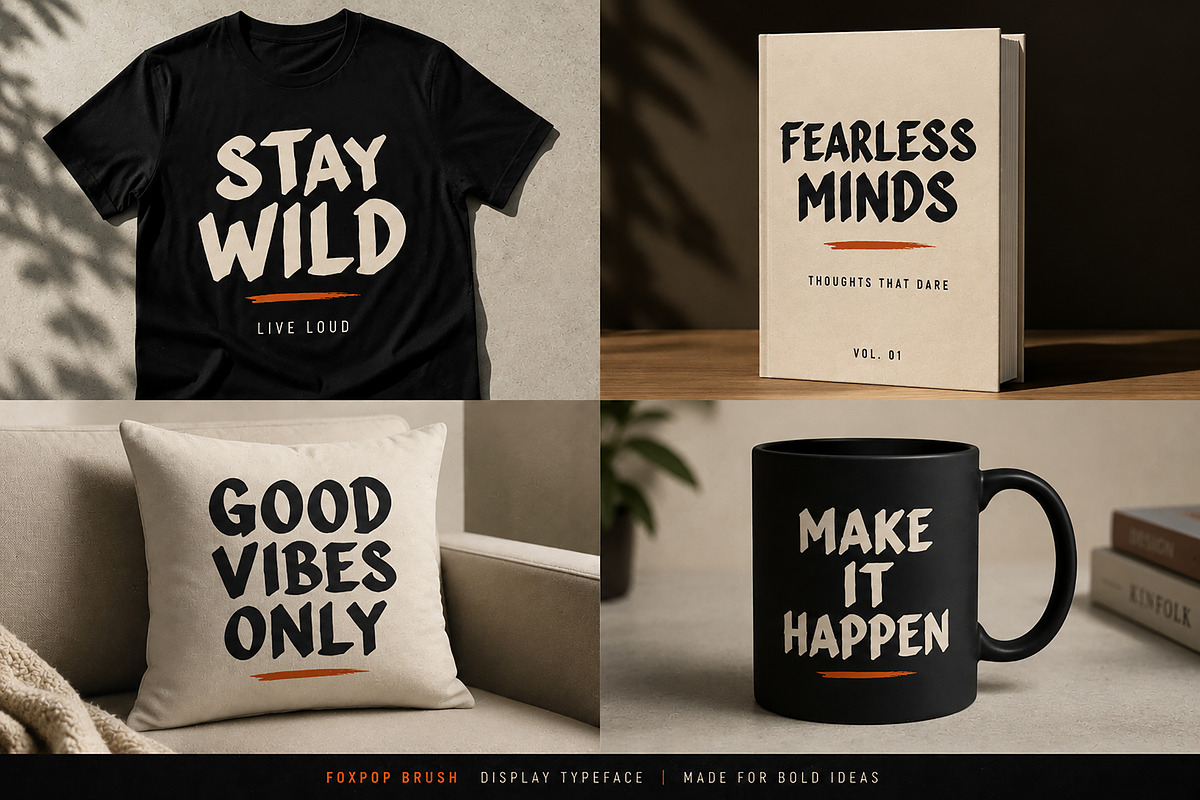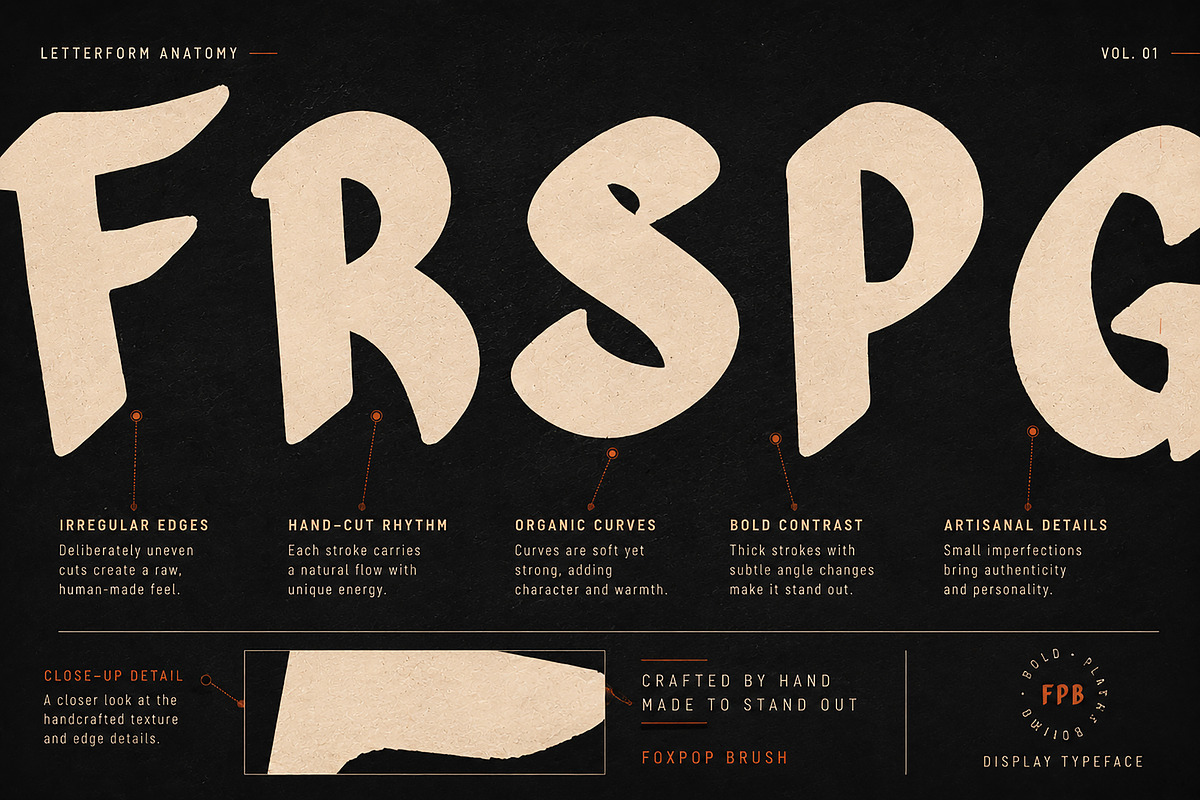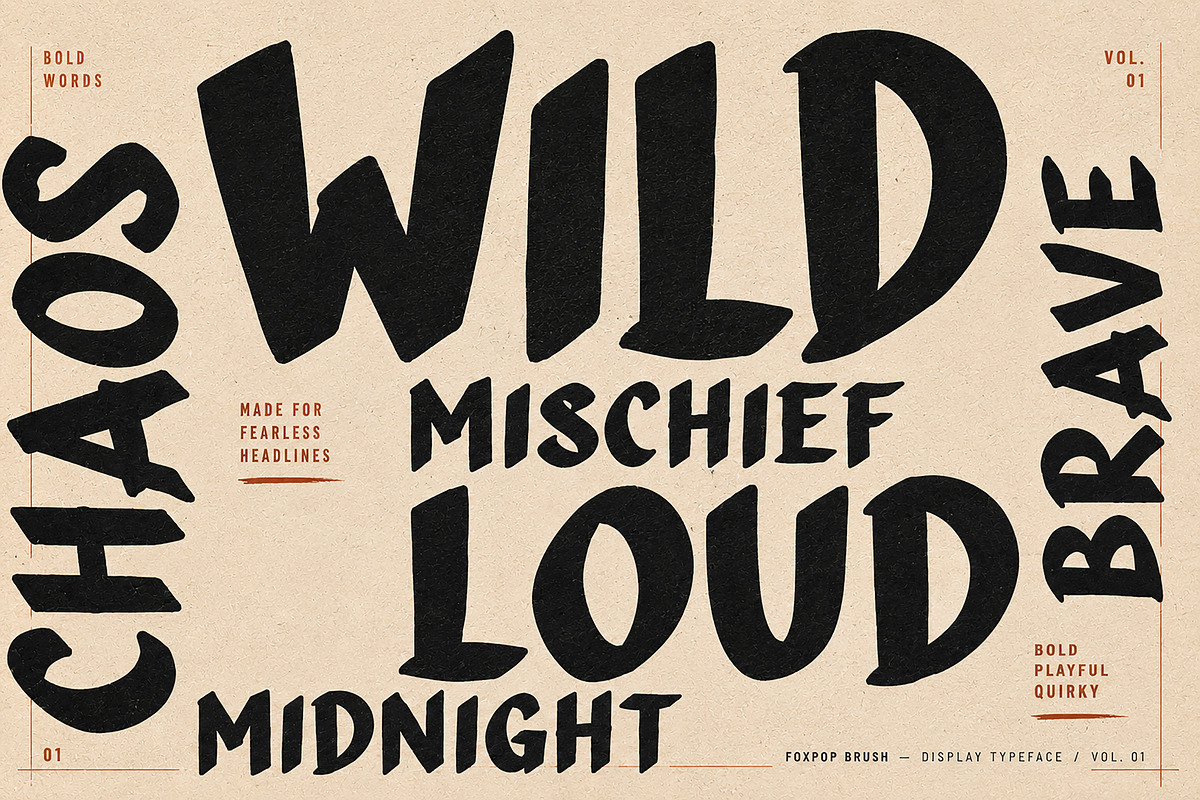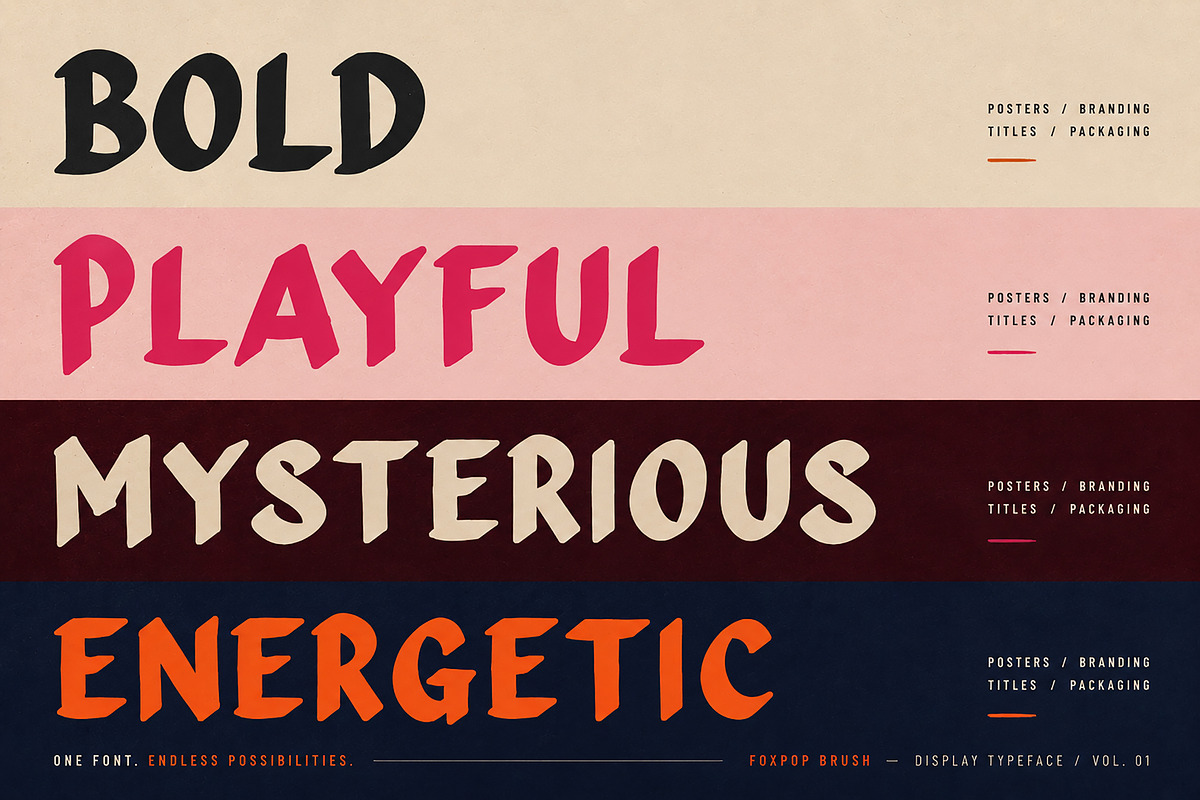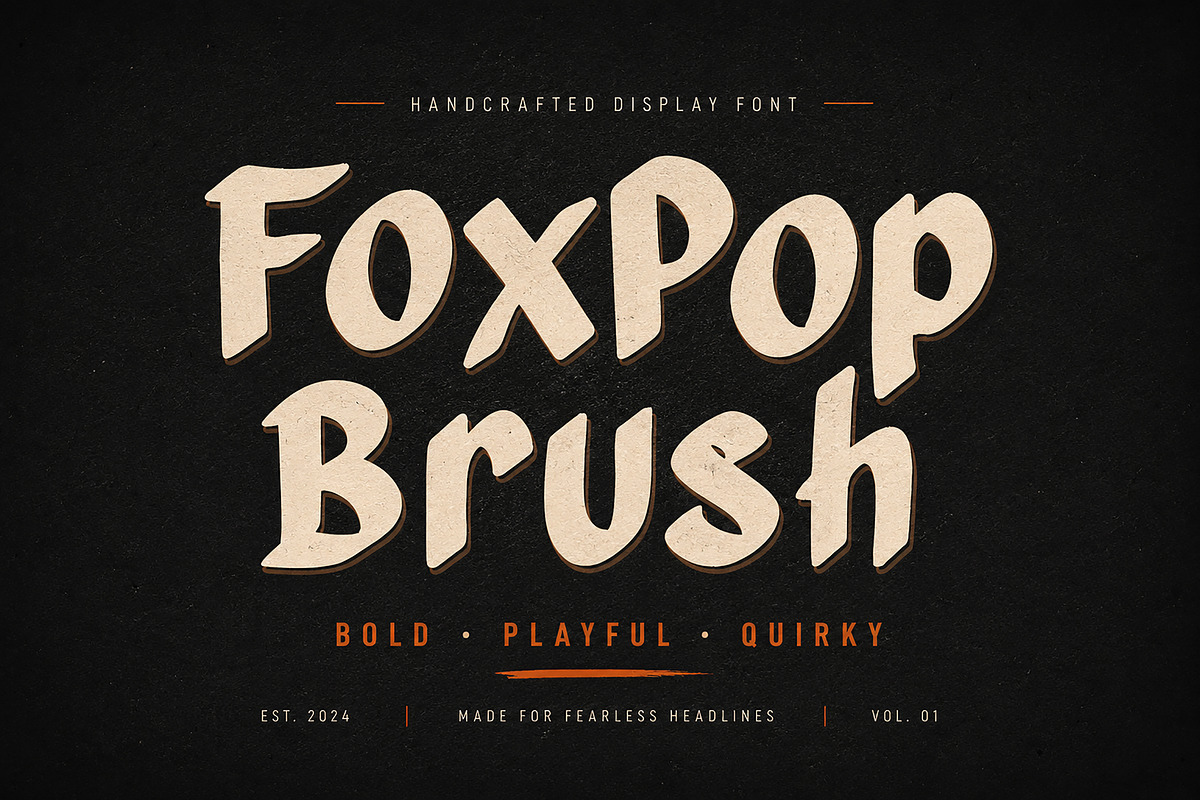
FoxPop Brush
FoxPop Brush – Bold Handcrafted Display Font
FoxPop Brush is a bold handcrafted display font designed to make every headline impossible to ignore. Featuring organic brush-inspired shapes, playful curves, and handcrafted imperfections, this typeface brings a unique personality to posters, branding, packaging, book covers, social media graphics, apparel, and more.
Whether you're creating eye-catching designs or bold visual identities, FoxPop Brush delivers a strong handmade look with modern versatility.
FoxPop Brush
Bold. Playful. Handcrafted.
FoxPop Brush is a handcrafted display font created for designers who want typography with character. Every letter has been carefully crafted with organic brush-inspired edges, natural imperfections, and bold shapes that create an authentic handmade appearance.
This font is perfect for projects that need energy, creativity, and personality without sacrificing readability.
Its bold structure makes it ideal for headlines, logos, posters, product packaging, apparel, branding, book covers, social media graphics, stickers, merchandise, and creative editorial designs.
Whether you're designing for modern brands, vintage-inspired artwork, playful campaigns, or bold packaging, FoxPop Brush helps your typography become the center of attention.
• Branding
• Logo Design
• Posters
• Book Covers
• Product Packaging
• T-Shirt Designs
• Mug Designs
• Pillow Prints
• Stickers
• Social Media Graphics
• YouTube Thumbnails
• Advertising
• Editorial Titles
• Headlines
• Merchandise
• Creative Projects
• Handcrafted Display Typeface
• Bold Brush Style
• Uppercase Letters
• Lowercase Letters
• Numbers
• Punctuation
✔ Handmade authentic look
✔ Strong visual impact
✔ Great for bold headlines
✔ Modern yet timeless style